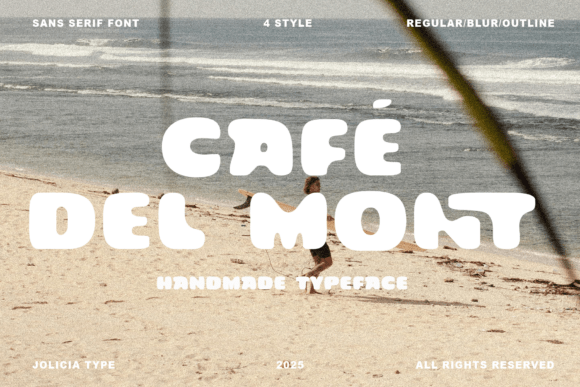
Cafe Del Mont Font: A Perfect Blend of Vintage Flair and Modern Usability
In the world of typography, fonts play a crucial role in conveying the tone and personality of a brand. A well-chosen font can elevate a design from ordinary to extraordinary, making it essential to select a typeface that resonates with the message you want to convey. Cafe Del Mont Font is a bold handwritten sans-serif font that has gained popularity for its unique blend of vintage flair and modern usability. In this article, we’ll explore the features, benefits, and uses of Cafe Del Mont Font, and why it’s an excellent choice for designers seeking an authentic and approachable feel.
What is Cafe Del Mont Font?
Cafe Del Mont Font is a bold handwritten sans-serif font infused with a warm, organic vintage vibe. Crafted to look naturally handwritten with confident strokes, it delivers a friendly yet strong character, perfect for designs that seek an authentic and approachable feel. The font’s unique personality is evident in its confident strokes, which give it a natural, handwritten look that’s both friendly and strong.
Key Features of Cafe Del Mont Font
- Handwritten Sans-Serif Font: Cafe Del Mont Font is a handwritten sans-serif font that boasts a natural, organic look.
- Warm and Organic Vintage Vibe: The font’s vintage vibe gives it a unique charm that’s perfect for designs that require a nostalgic or retro feel.
- Confident Strokes: The font’s confident strokes give it a strong character that’s both friendly and approachable.
- Multiple Versions: Cafe Del Mont Font comes in multiple versions, each offering a unique personality, from clean boldness to soft, retro blur effects.
- Outline Styles: The font’s outline styles add an extra layer of charm, making it ideal for designs that require a distinctive look.
Benefits of Using Cafe Del Mont Font
Cafe Del Mont Font offers several benefits that make it an excellent choice for designers. Some of the benefits include:
- Authentic and Approachable Feel: The font’s natural, handwritten look gives it an authentic and approachable feel that’s perfect for designs that require a personal touch.
- Vintage Flair: The font’s vintage vibe adds a unique charm to designs, making them stand out from the crowd.
- Modern Usability: Despite its vintage flair, Cafe Del Mont Font is designed with modern usability in mind, making it easy to use in a variety of design contexts.
- Versatility: The font’s multiple versions and outline styles make it a versatile choice for designers, suitable for a wide range of design applications.
Use Cases for Cafe Del Mont Font
Cafe Del Mont Font is a versatile typeface that’s suitable for a wide range of design applications. Some of the use cases include:
- Cafe Branding: The font’s vintage vibe and handwritten look make it perfect for cafe branding, adding a touch of nostalgia and warmth to menus, signage, and packaging.
- Organic Product Packaging: The font’s natural, organic look makes it an excellent choice for organic product packaging, conveying a sense of earthiness and wholesomeness.
- Nostalgic Signage: Cafe Del Mont Font’s vintage flair makes it perfect for nostalgic signage, adding a touch of retro charm to signs and posters.
- Lifestyle Posters: The font’s handmade touch makes it an excellent choice for lifestyle posters, adding a personal and authentic feel to designs.
Why Choose Cafe Del Mont Font?
Cafe Del Mont Font is an excellent choice for designers seeking an authentic and approachable feel. Here are some reasons why:
- Unique Personality: The font’s unique personality, infused with a warm, organic vintage vibe, sets it apart from other fonts.
- High-Quality Design: Cafe Del Mont Font is designed with high-quality craftsmanship, ensuring that it looks great in any design context.
- Easy to Use: The font’s modern usability makes it easy to use in a variety of design contexts, from digital designs to print materials.
- Versatile: The font’s multiple versions and outline styles make it a versatile choice for designers, suitable for a wide range of design applications.
Cafe Del Mont Font is a bold handwritten sans-serif font that offers a perfect blend of vintage flair and modern usability. Its unique personality, high-quality design, and versatility make it an excellent choice for designers seeking an authentic and approachable feel. Whether you’re designing cafe branding, organic product packaging, nostalgic signage, or lifestyle posters, Cafe Del Mont Font is a great choice. Its handmade touch and natural, organic look will add a personal and authentic feel to your designs, setting them apart from the crowd.
Final Thoughts
In conclusion, Cafe Del Mont Font is a top-notch font that deserves attention from designers seeking a unique and authentic look. Its blend of vintage flair and modern usability makes it a versatile choice for a wide range of design applications. With its high-quality design, confident strokes, and multiple versions, Cafe Del Mont Font is an excellent addition to any designer’s font library.